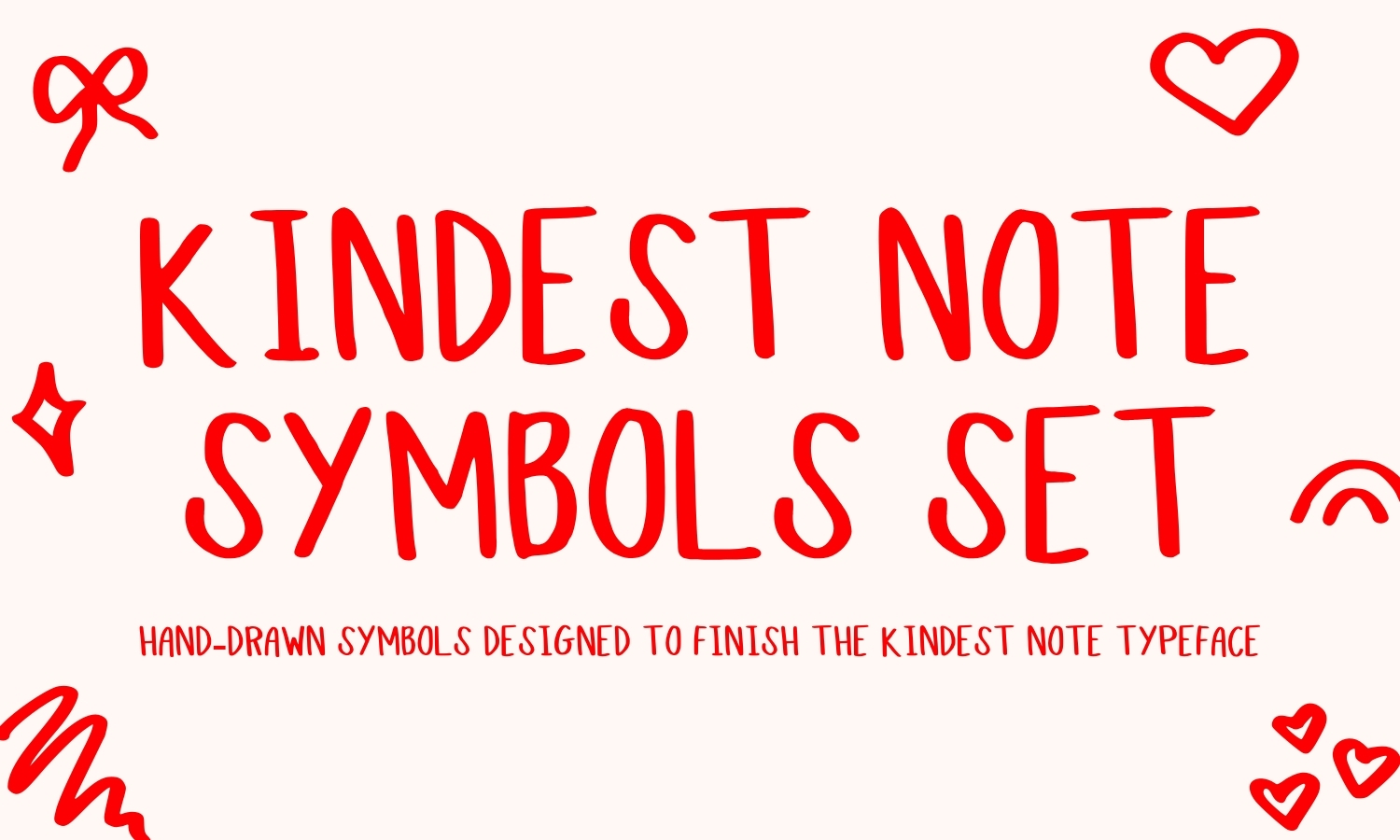
A Handwritten Typography Symbol Font Designed to Complete the Kindest Note Typeface!
If you downloaded last week’s Kindest Note font, this Freebie Friday was designed specifically to finish it.
The Kindest Note Companion Symbols are a handwritten symbol font created to match the original Kindest Note typeface visually. Together, they form a small typography system that makes quotes, posters, branding layouts, and print designs feel intentional instead of unfinished.
This is not a decorative add-on. It is a functional symbol font built to work exactly like text.
What Is a Companion Symbol Font
A companion symbol font is a font made entirely of symbols instead of letters. These symbols are designed to match a specific typeface so they can be typed, scaled, colored, and spaced just like regular text.
Unlike graphic elements or PNG assets, symbol fonts integrate directly into your typography workflow. You can use them inside Canva, design software, and print layouts without switching tools or breaking visual consistency.
The Kindest Note Companion Symbols were created alongside the font, not added later. Every mark matches the stroke weight, spacing, and organic rhythm of the handwritten letters.
What’s Included in the Kindest Note Companion Symbol Font
This symbol font includes a curated set of handwritten typography symbols designed for real-world design use.
You will find:
• Dots and bullet styles
• Divider and separator lines
• Simple structure and framing symbols
• Signature illustrations
Each symbol is intentionally restrained so that it supports the typography rather than competing with it.
How the Symbol Font Pairs With Kindest Note
Kindest Note handles the words. The companion symbols handle the structure.
When used together, the font and symbols allow you to build complete typographic compositions using a single visual language. This means you do not need to mix fonts or add decorative elements that feel out of place.
You can use the symbol font to:
• Separate lines in wall art and posters
• Add subtle emphasis to key words
• Create visual rhythm in quotes
• Build hierarchy without switching typefaces
• Reuse the same font system across multiple designs
This is especially useful for creators who want their work to feel cohesive across many pieces without redesigning from scratch each time.
Why Typography Feels Incomplete Without Symbols
Most fonts are released as letters only. In real design work, letters rarely live alone.
Symbols provide pacing, emphasis, and structure. They guide the eye and create breathing room inside layouts. Without them, designers often reach for unrelated shapes, extra fonts, or decorative elements that break consistency.
This companion symbol font solves that problem by keeping everything inside the same handwritten style.
Designed for Adobe, Canva, Print, and Digital Design
Because the Kindest Note Companion Symbols are delivered as a font, they work seamlessly inside Canva and other design tools. You can type the symbols directly from your keyboard, scale them just like text, change colors instantly, and adjust spacing to fit any layout.
This flexibility makes them especially useful for wall art, quote posters, branding typography, Pinterest graphics, editorial style layouts, and both print and digital design.
Building a Small Typography System
Together, Kindest Note and the Companion Symbols create a reusable typography system!
Instead of treating fonts as one-off downloads, this approach lets you return to the same typeface again and again while still creating layouts that feel intentional and elevated. This is a perfect representation of how thoughtful typography works in real design!